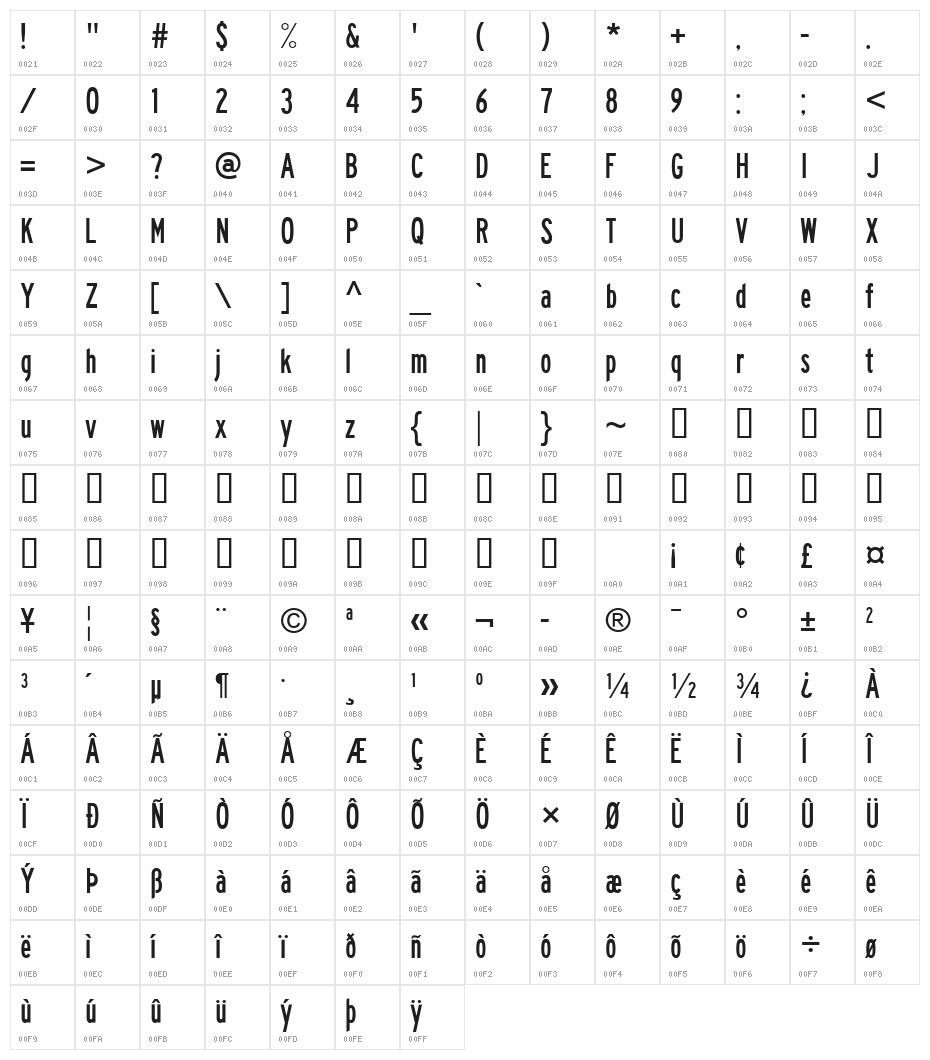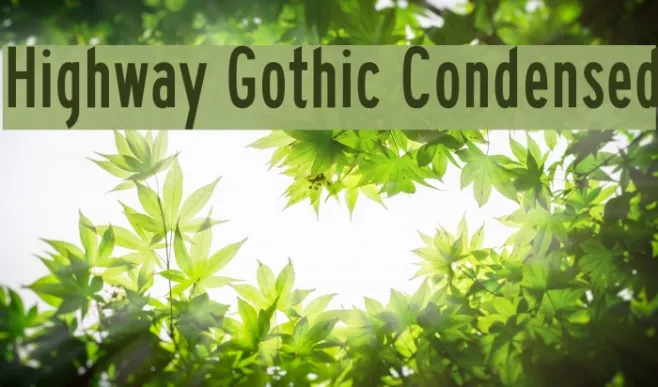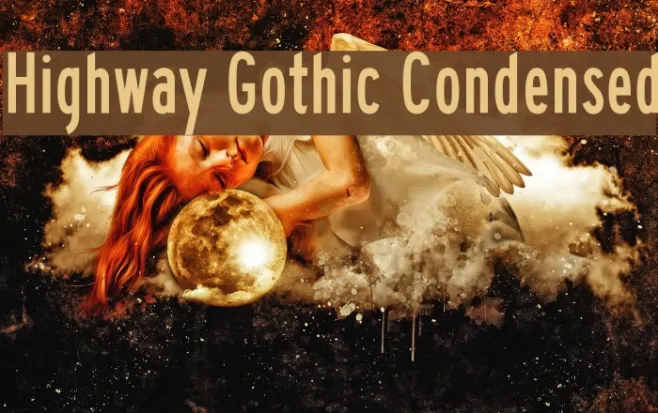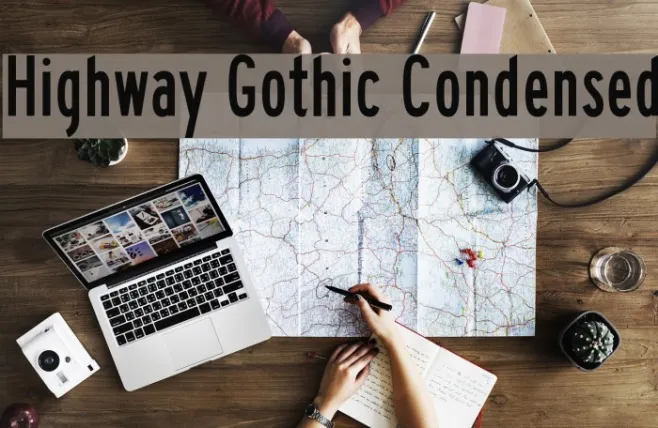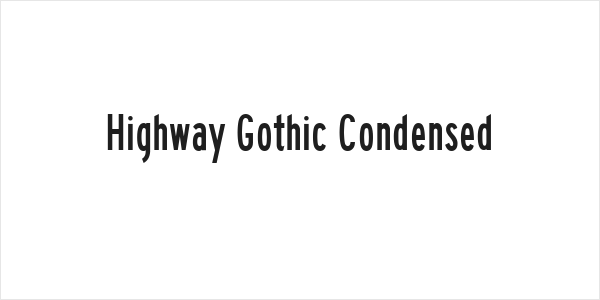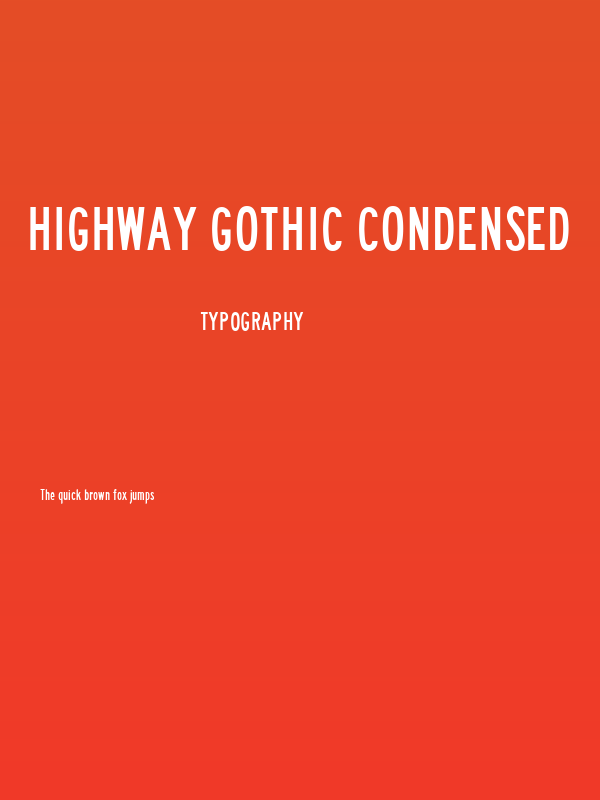
Highway Gothic Condensed Font
Highway Gothic Condensed Description
This typeface features a clean, modern design with a condensed structure, making it highly legible and efficient for space-saving applications. The uppercase and lowercase letters are well-proportioned, with a consistent stroke width that ensures clarity and readability. The numerals and special characters maintain the same design ethos, providing a cohesive look across all elements. Its straightforward and no-nonsense style is ideal for conveying information quickly and effectively.
| Use Case | Signage, Informational displays, Headlines |
| Proposed Projects | Perfect for highway signage, informational displays, and any project requiring clear and concise communication. |